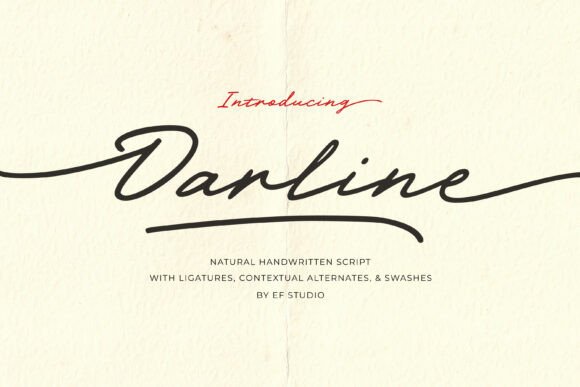
Introducing Darline Font: The Perfect Handwritten Script for Your Designs
Are you looking for a font that can add a personal touch to your designs? Do you want to create a warm and inviting atmosphere that resonates with your audience? Look no further than Darline Font, a beautiful natural handwritten script that brings a human touch to your projects.
The Charm of Darline Font
Darline Font is a carefully crafted handwritten script that exudes warmth and personality. With its smooth curves and gentle strokes, it captures the authentic feel of real handwriting, making it perfect for a wide range of design applications. Whether you’re working on branding, wedding invitations, packaging, quotes, or any other project that needs a personal touch, Darline Font is the ideal choice.
Key Features of Darline Font
Darline Font is more than just a beautiful handwritten script. It comes with a range of features that make it versatile and easy to use. Some of its key features include:
- Ligatures: Darline Font includes ligatures, which allow you to create a more natural flow between letters. This feature is especially useful for creating words and phrases that look like they were written by hand.
- Contextual Alternates: The contextual alternates feature is a game-changer for handwritten fonts. It automatically adjusts the end strokes of each word to create a smoother, more realistic look. This means that each word looks like it was written individually, rather than being a uniform font.
- Swashes: Darline Font also includes swashes, which add a touch of elegance and sophistication to your designs. Swashes are perfect for adding a decorative touch to headings, titles, and other design elements.
Using Darline Font in Your Designs
Darline Font is incredibly versatile and can be used in a wide range of design applications. Here are some ideas to get you started:
- Branding: Use Darline Font to create a personal and approachable brand identity. It’s perfect for logos, business cards, and other marketing materials.
- Wedding Invitations: Darline Font is a beautiful choice for wedding invitations, save-the-dates, and other wedding stationery. It adds a touch of romance and elegance to your designs.
- Packaging: Darline Font is perfect for packaging design, especially for products that require a personal touch. It can add a touch of warmth and personality to labels, tags, and other packaging elements.
- Quotes and Typography: Darline Font is a great choice for creating inspirational quotes, typographic posters, and other text-based designs. Its smooth curves and gentle strokes make it easy to read and visually appealing.
Tips for Working with Darline Font
Here are some tips for getting the most out of Darline Font:
- Experiment with Ligatures: Take advantage of the ligatures feature to create a more natural flow between letters. This will help to create a more realistic handwritten look.
- Use Contextual Alternates: Make sure to enable the contextual alternates feature to create a more realistic look. This feature will automatically adjust the end strokes of each word to create a smoother, more handwritten look.
- Add Swashes: Don’t be afraid to add swashes to your designs. They can add a touch of elegance and sophistication to your typography.
- Mix and Match: Don’t be afraid to experiment with different font sizes, colors, and styles. Darline Font can be paired with a range of other fonts and design elements to create a unique and visually appealing design.
Darline Font is a beautiful natural handwritten script that brings a warm and personal touch to your designs. With its smooth curves, gentle strokes, and range of features, it’s perfect for a wide range of design applications. Whether you’re working on branding, wedding invitations, packaging, or quotes, Darline Font is the ideal choice. So why not give it a try and see how it can elevate your designs?